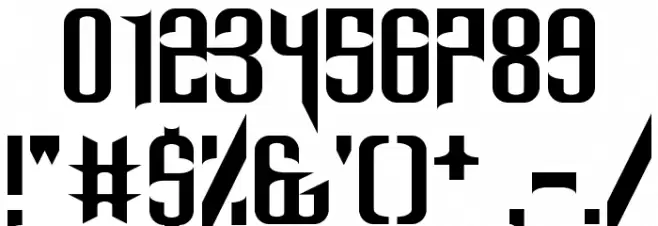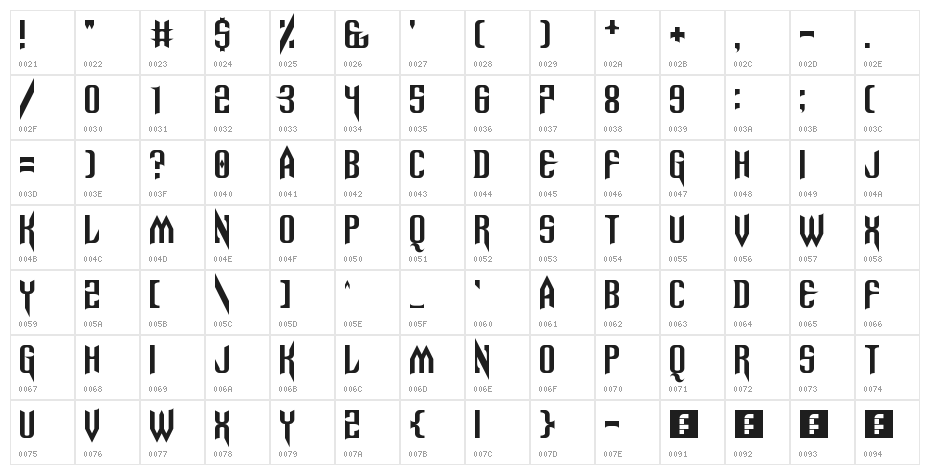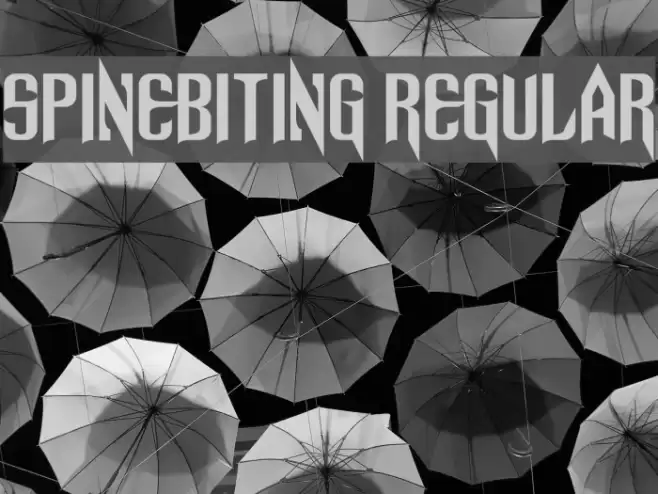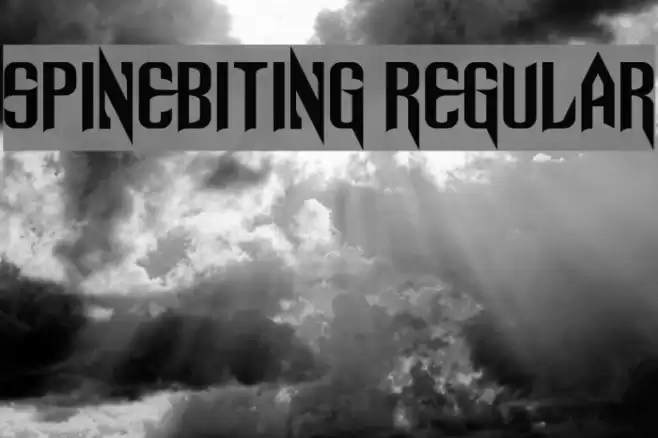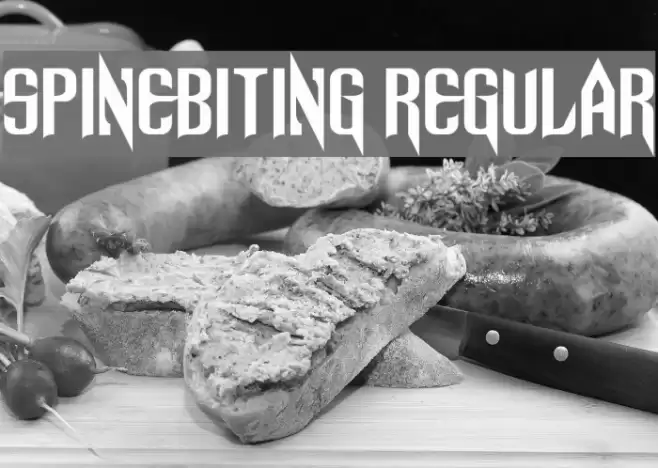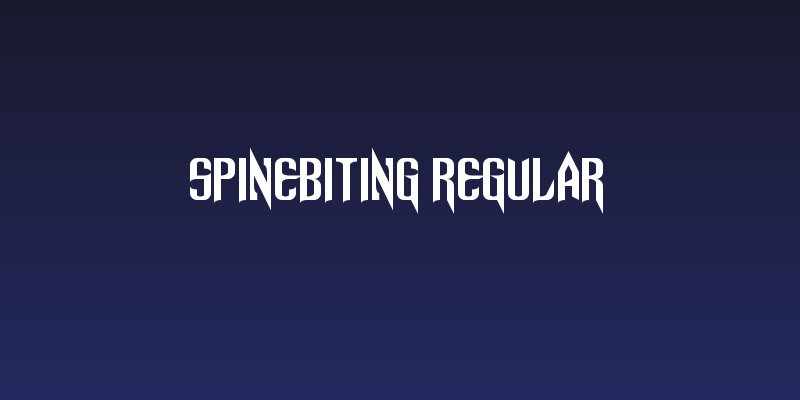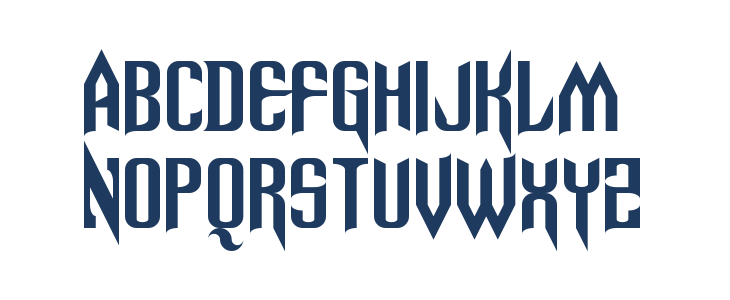
Spinebiting Regular Font
Spinebiting Regular Description
This font features a bold and striking design with sharp, angular edges and a gothic-inspired aesthetic. The uppercase letters are characterized by their tall, narrow forms and pointed serifs, giving them a dramatic and intense appearance. The lowercase letters maintain a similar style, ensuring consistency across the typeface. Numbers and special characters are crafted with the same attention to detail, making them suitable for a variety of uses. The overall look is both modern and edgy, perfect for projects that require a strong visual impact.
| Overall Style | Modern, Gothic |
| Proposed Projects | Ideal for album covers, posters, branding for edgy or alternative products, and any project that requires a bold statement. |